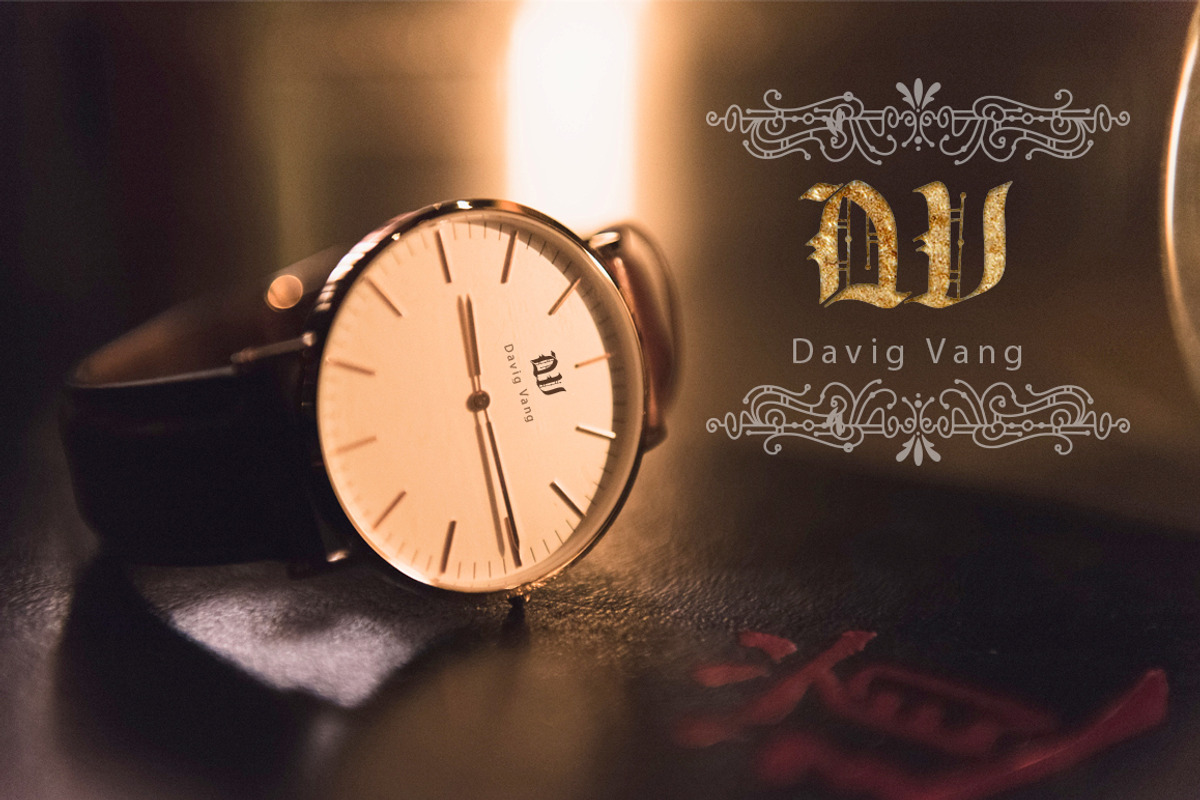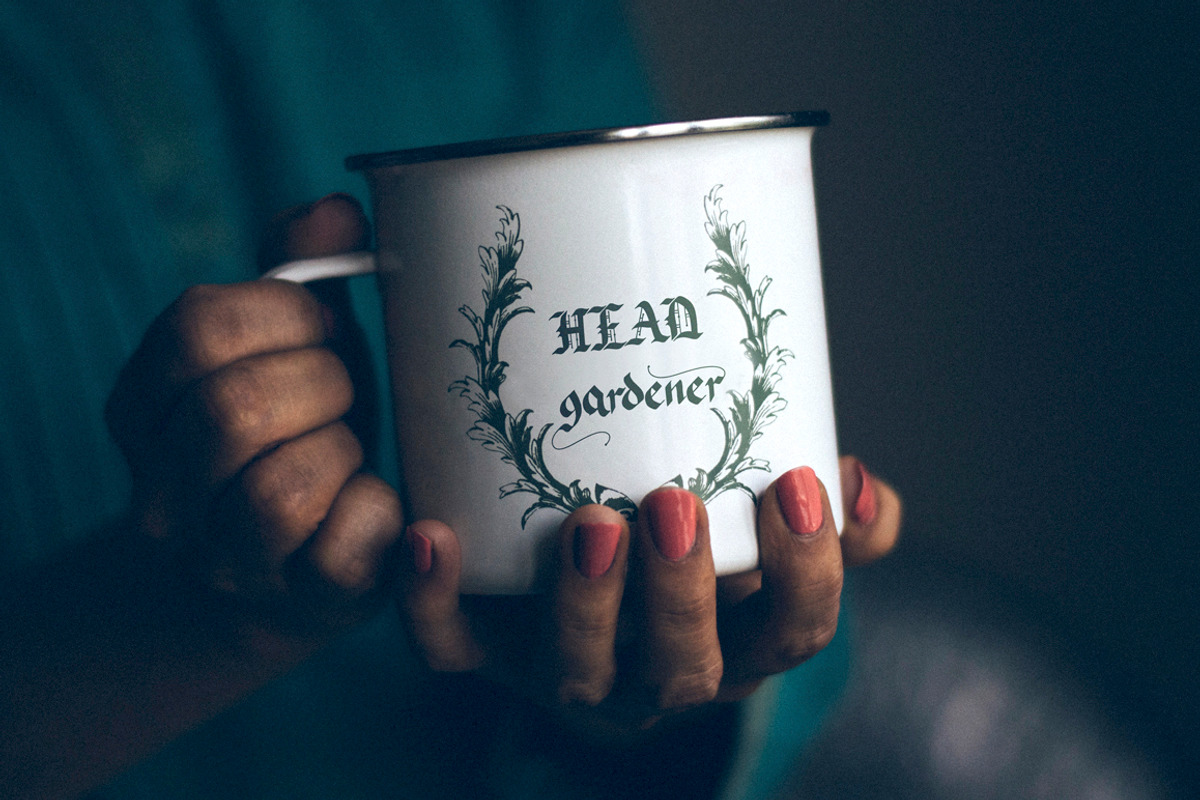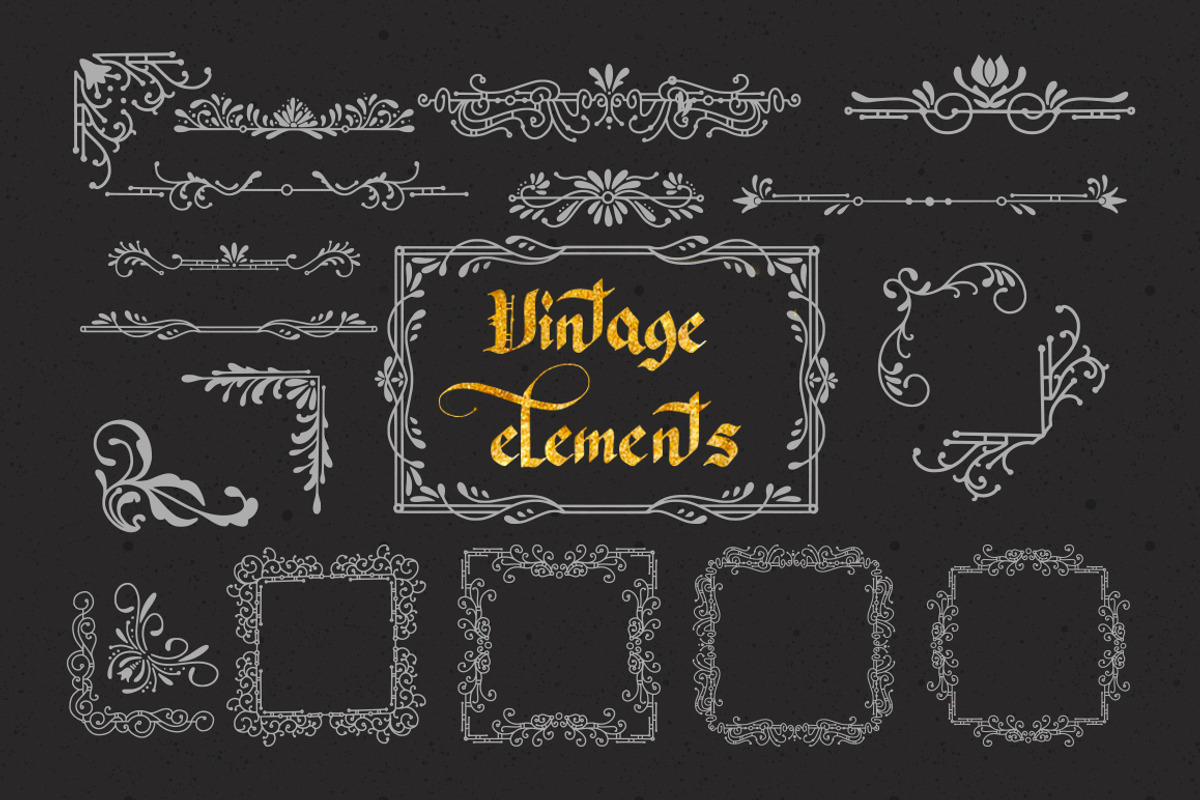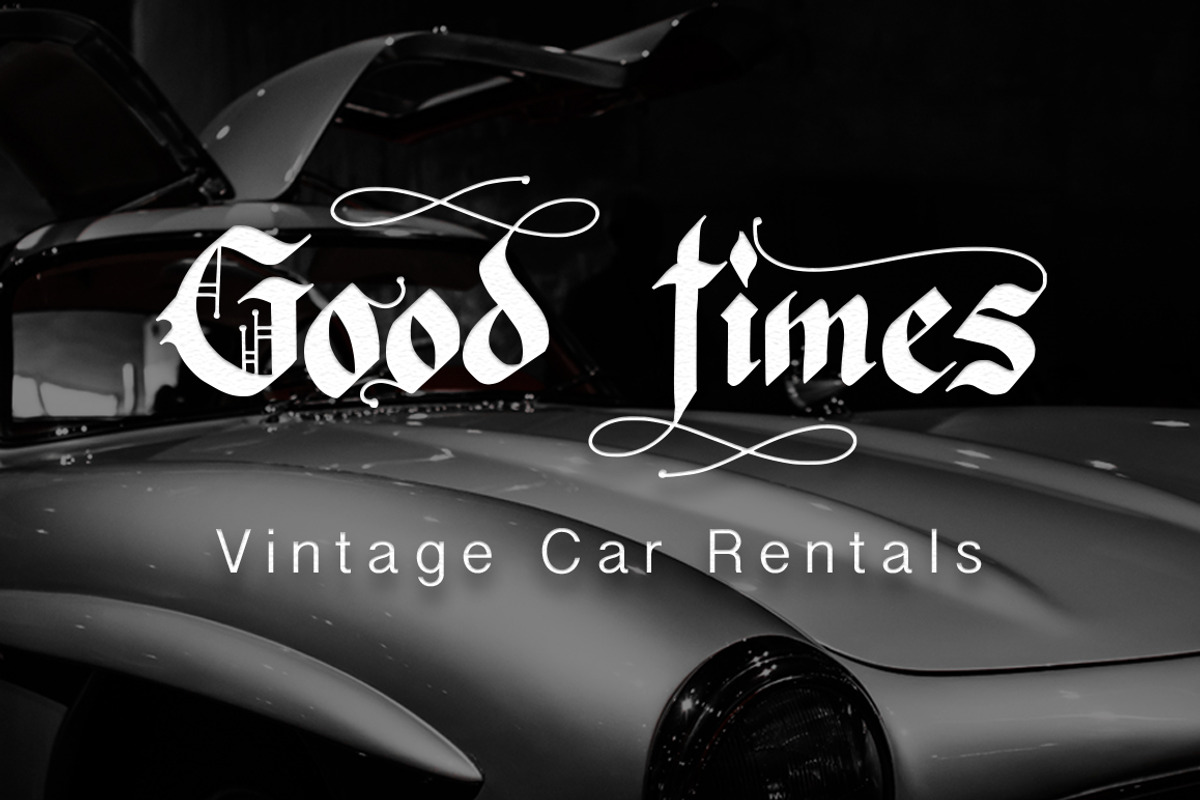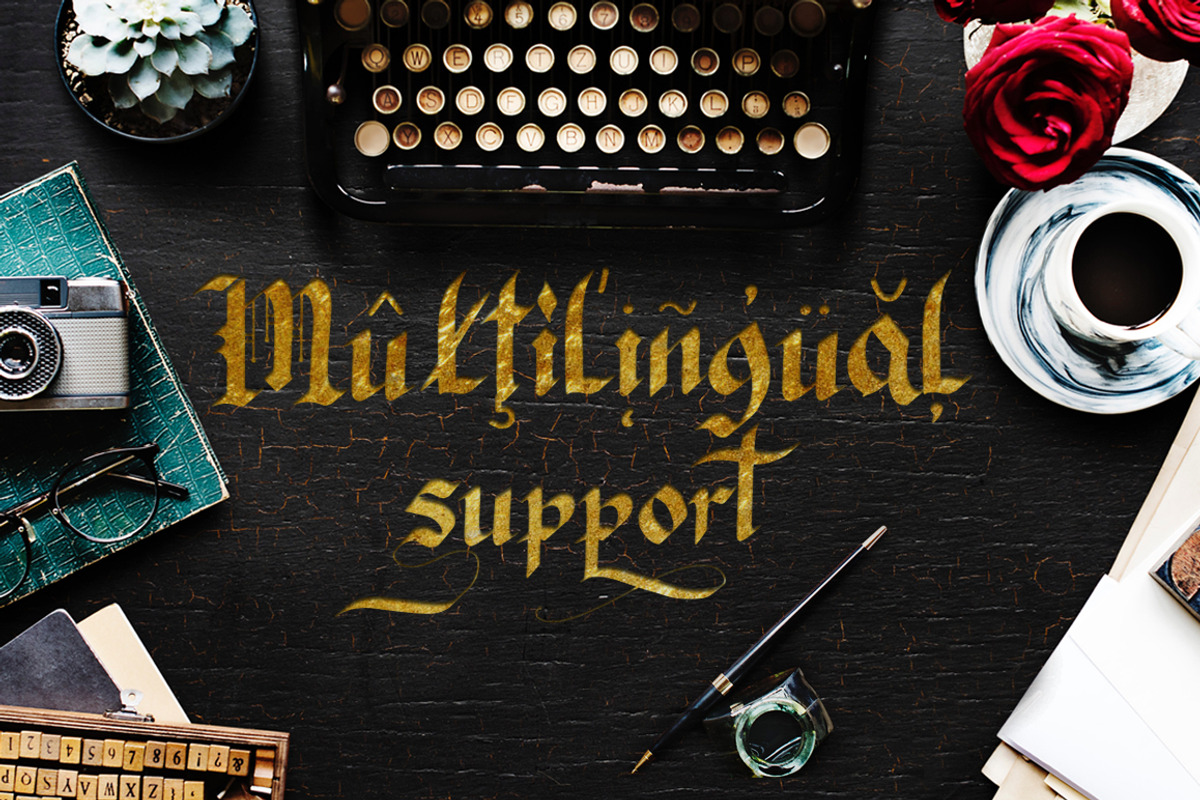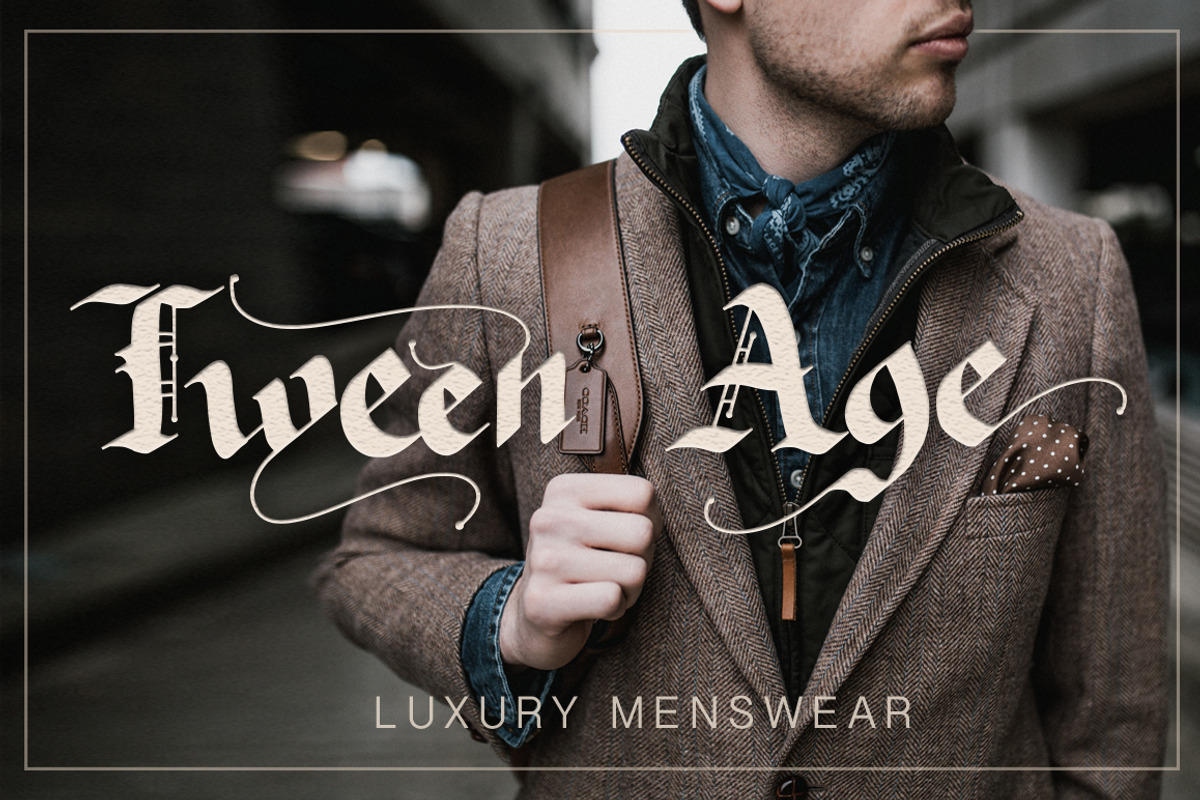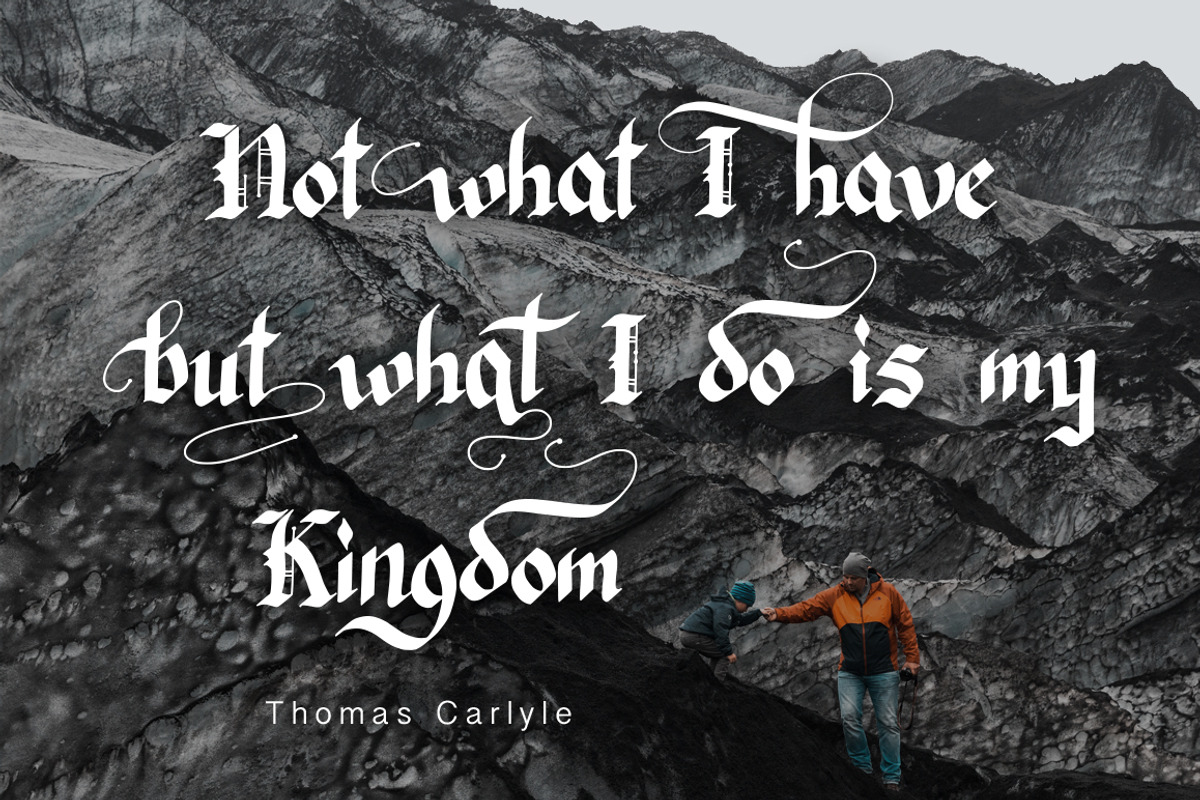
Königreich Font
I'm happy to introduce you Königreich Font with classic, elegant, vintage, and magic feel. Also, it comes with 20 vintage ornaments to adding more aesthetics of your designs.
It’s perfect tool to create amazing designs, like vintage cards, modern t-shirts, retro posters, unusual mugs, luxury branding materials, and any other projects you are working on.
Königreich is a beautiful blackletter font with lots of OTF. 4 variants of alternate letters for the lowercase, make this font an unique tool for creating amazing handdrawn texts, richly decorated with swashes.
You can still use the Glyphs panel. You’ll see there 104 stylistic alternate glyphs for lovercase and 21 ligatures. It has multilingual support, which include Western European, Central European and South Eastern European languages. Please type characters in text box below to check any characters you need.